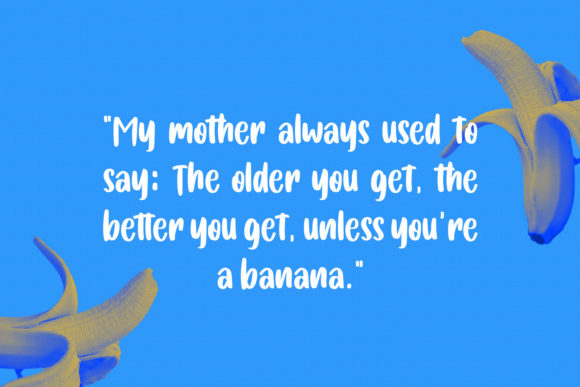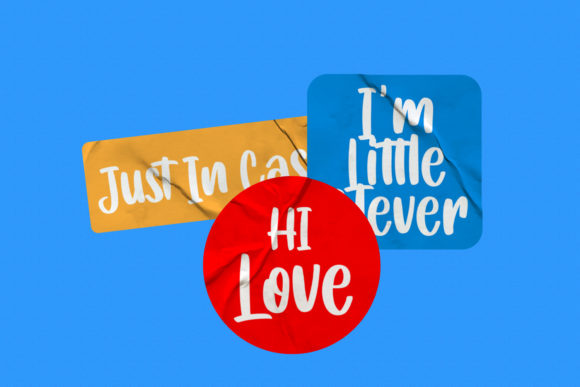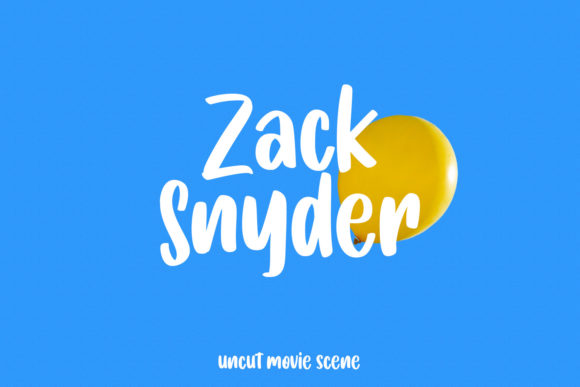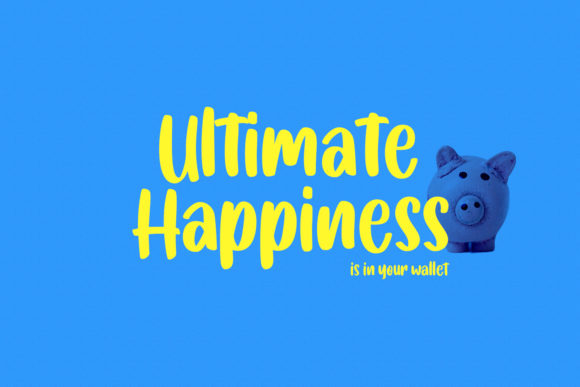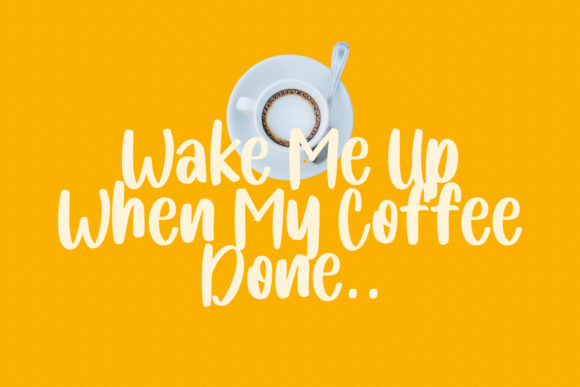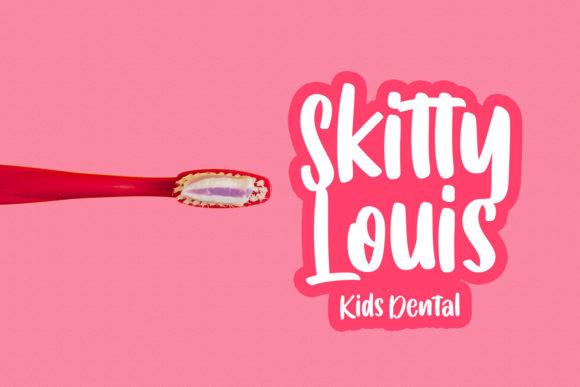
Introducing Butterjam Font: The Perfect Addition to Your Creative Projects
Are you tired of using the same old fonts in your designs? Look no further than Butterjam Font, a fun, friendly, and casual looking handwritten font that’s sure to make your projects stand out. With its unique and approachable style, Butterjam Font is perfect for designers and crafters looking to add a personal touch to their work.
The Characteristics of Butterjam Font
Butterjam Font is a handwritten font that’s designed to look friendly and approachable. Its casual and relaxed style makes it perfect for a wide range of projects, from social media graphics and blog posts to invitations and crafts. The font’s unique characteristics include:
- Handwritten style: Butterjam Font has a distinctive handwritten look that’s perfect for adding a personal touch to your designs.
- Fun and friendly: The font’s playful and approachable style makes it perfect for projects that require a lighthearted and informal tone.
- Casual and relaxed: Butterjam Font is designed to look casual and relaxed, making it perfect for projects that require a laid-back vibe.
The Benefits of Using Butterjam Font
So why should you choose Butterjam Font for your next project? Here are just a few benefits of using this versatile font:
- Versatility: Butterjam Font can be used for a wide range of projects, from social media graphics and blog posts to invitations and crafts.
- Uniqueness: With its distinctive handwritten style, Butterjam Font is sure to make your projects stand out from the crowd.
- Ease of use: Butterjam Font is easy to read and use, making it perfect for projects that require a clear and concise message.
How to Use Butterjam Font in Your Projects
Butterjam Font is incredibly easy to use and can be matched to an incredibly large set of projects. Here are a few ideas to get you started:
- Social media graphics: Use Butterjam Font to create eye-catching social media graphics that showcase your brand’s personality.
- Blog posts: Add a personal touch to your blog posts with Butterjam Font, perfect for headings, subheadings, and body text.
- Invitations: Use Butterjam Font to create unique and personalized invitations for parties, weddings, and other special events.
- Crafts: Butterjam Font is perfect for crafters who want to add a personal touch to their projects, from scrapbooking to card making.
Tips for Getting the Most Out of Butterjam Font
Here are a few tips for getting the most out of Butterjam Font:
- Experiment with different colors: Butterjam Font looks great in a variety of colors, so don’t be afraid to experiment and find the perfect hue for your project.
- Mix and match with other fonts: Butterjam Font pairs well with a range of other fonts, so try mixing and matching to create a unique and eye-catching combination.
- Use it for headlines and titles: Butterjam Font is perfect for headlines and titles, where its playful and attention-grabbing style can really shine.
In conclusion, Butterjam Font is a fun, friendly, and casual looking handwritten font that’s perfect for designers and crafters looking to add a personal touch to their projects. With its unique and approachable style, versatility, and ease of use, Butterjam Font is sure to become a favorite in your font collection. So why not give it a try and see how it can make your projects stand out?